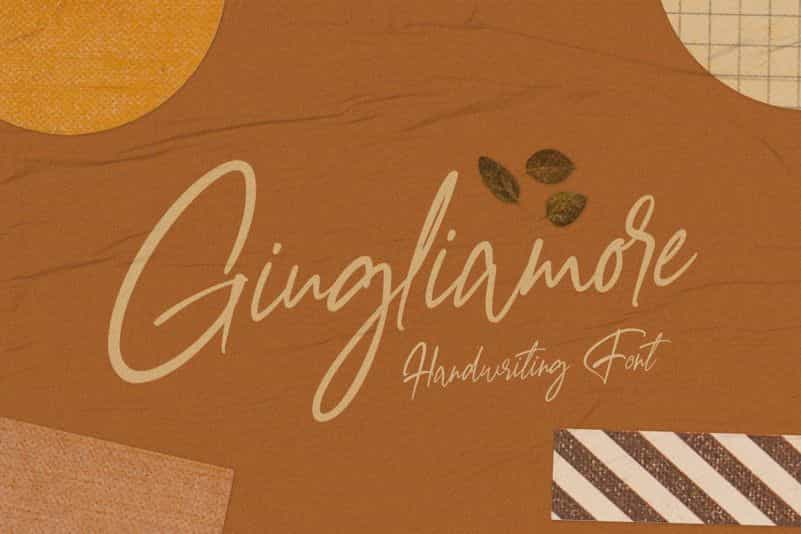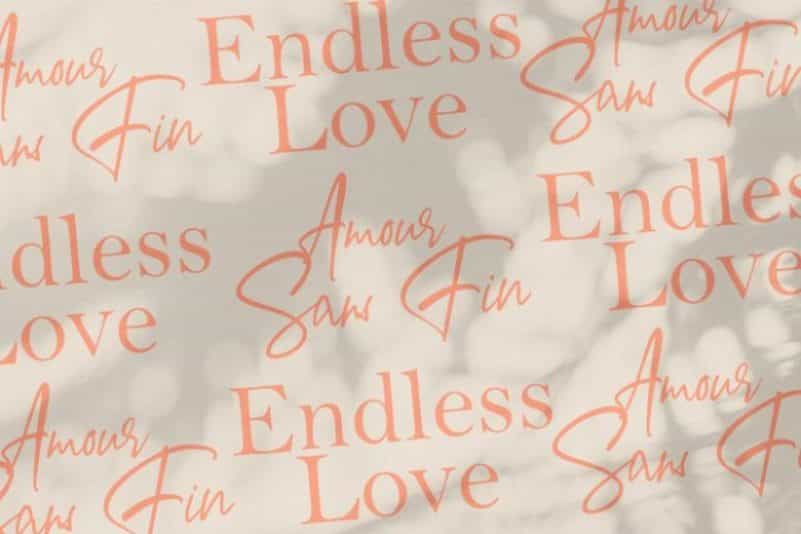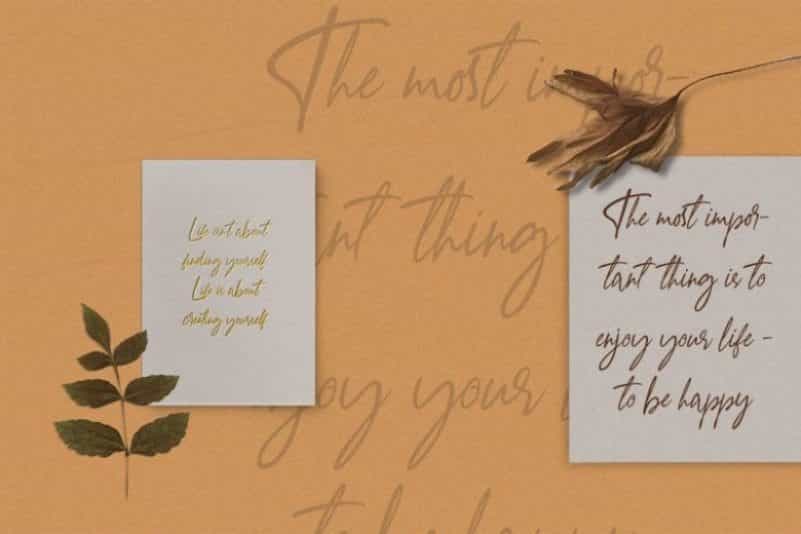
Discover Giugliamore Handwriting Font, part of the Brush Handwritten collection—a versatile and unique font perfect for adding a personal touch to your projects. Download it for free and enjoy crafting designs with style, from invitations to social media posts. This font is available exclusively for personal use, giving you the freedom to create without limits. Unlock your creativity with Giugliamore Handwriting Font today!
Introducing Giugliamore Font. It’s a contemporary style, It is ideal for blogging, social media, product branding, wedding card designing, branding, packaging, headlines, signages, labels, signature, book covers, postering, quotes and many more.